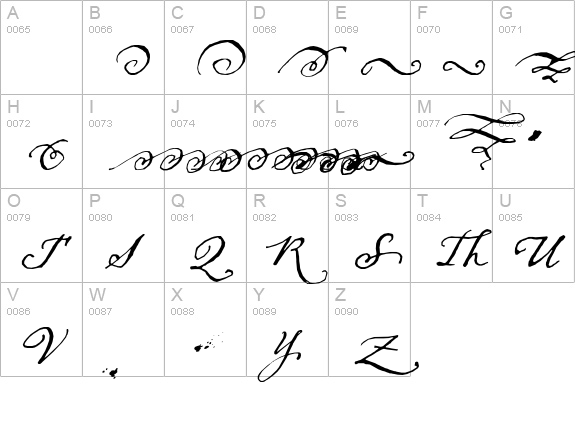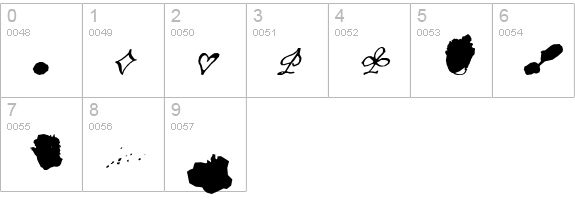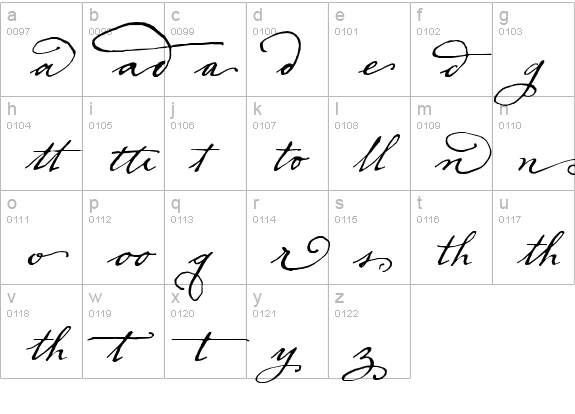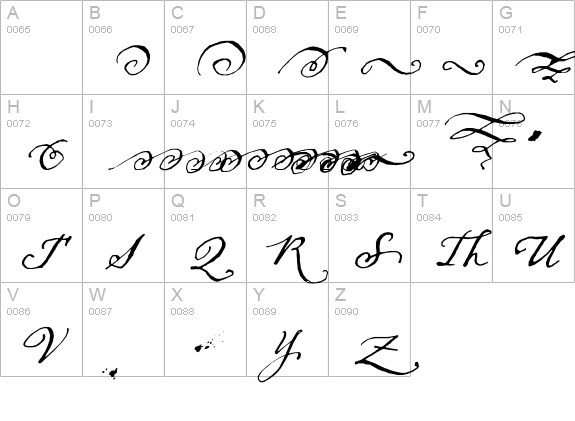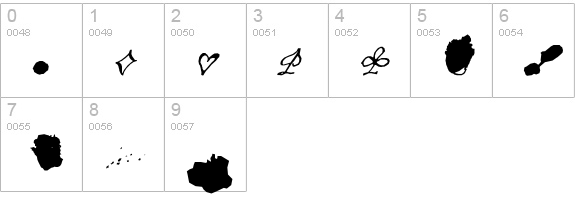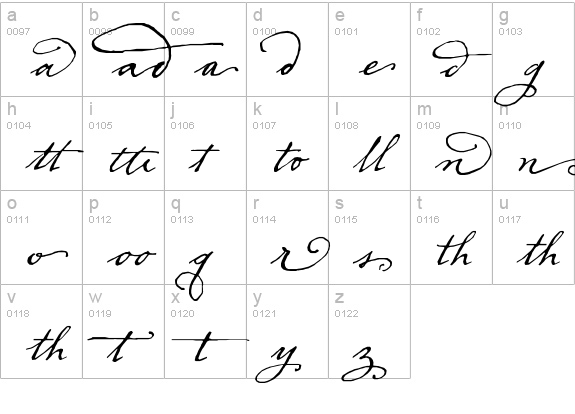
Dear Sarah Swash Font Details
Dear Sarah Swash is a charming and elegant handwritten font that exudes sophistication and grace. With its delicate curves and fluid strokes, this font is perfect for adding a touch of whimsy and style to your projects. Whether you're designing invitations, greeting cards, or branding materials, Dear Sarah Swash will elevate your work to new heights. What makes Dear Sarah Swash even more appealing is that it is available for free download at FontsMarket.com. This means that you can enjoy all the beauty and versatility of this font without having to spend a dime. So go ahead and add Dear Sarah Swash to your font collection today and let your creativity soar.